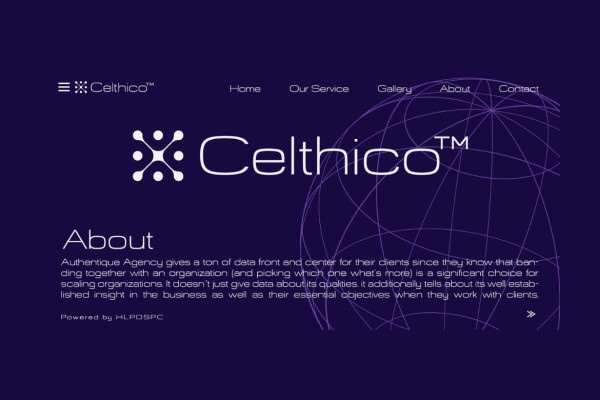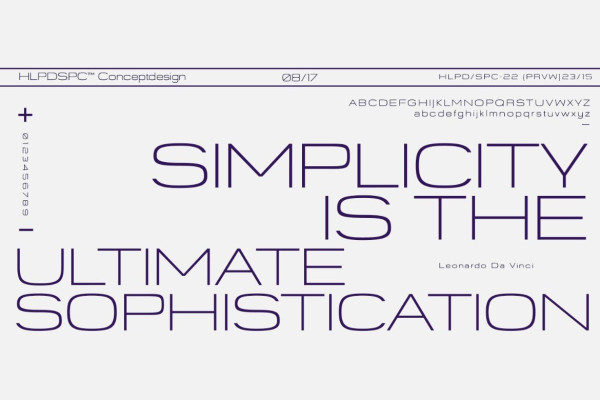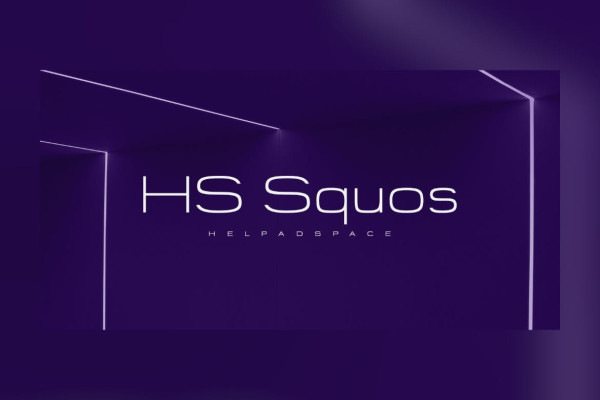
HS Squos Font
HS Squos Font! A Futuristic San Serif with the professional touch. It looks modern and clean that can be used for all your project needs.
So, HS Squos Font can’t wait to give its touch to all your design projects such as magazine, book, poster design, personal branding, promotional materials, logotype, product packaging, etc.